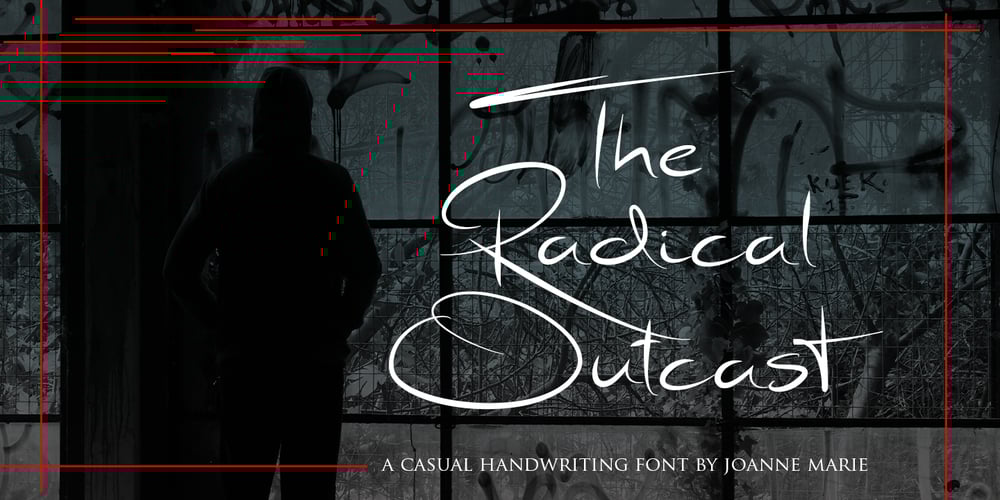
Radical Outcast Font Family was designed by Joanne Hewitt and published by Joanne Marie. Radical Outcast contains 1 styles and family package options. This brand new signature font is so versatile that you can use it for just about anything. Its big, bold caps are perfect for logos and icons, giving off a genuine and unique handwriting feel to your designs.Other uses for this casual font could be on apparel such as bags, t-shirts, bottles, etc. I see it being used in taglines on a range of products such as sport & fitness products, tattoo branding, soft drinks (energy drinks). I’m sure you’ll find a use for it!